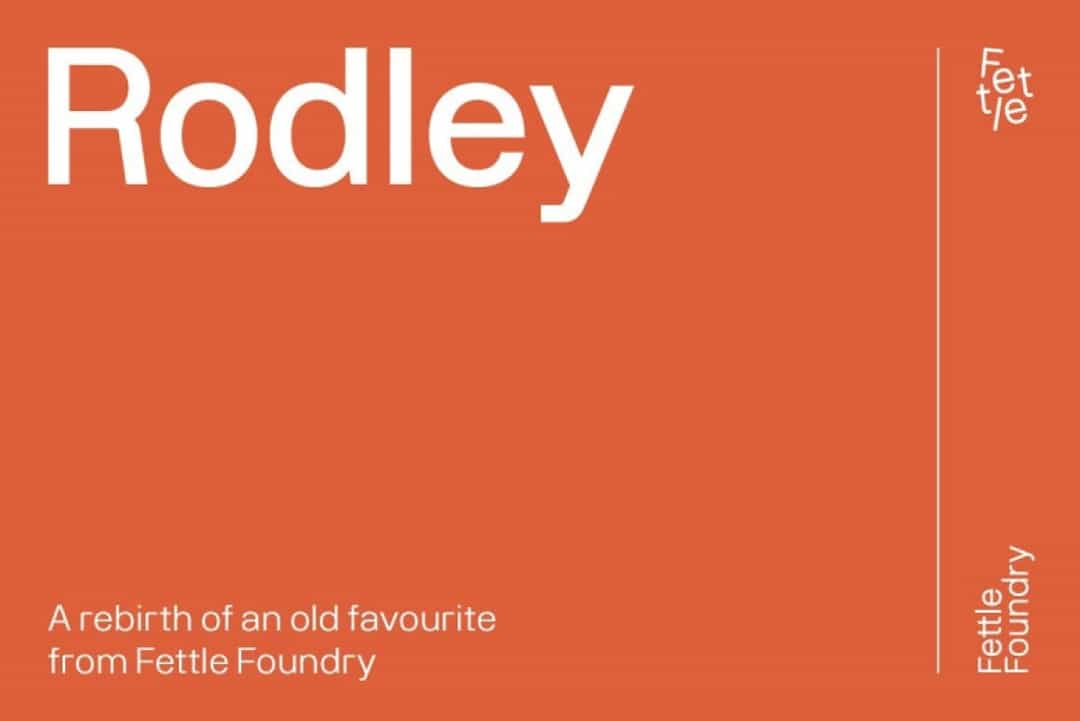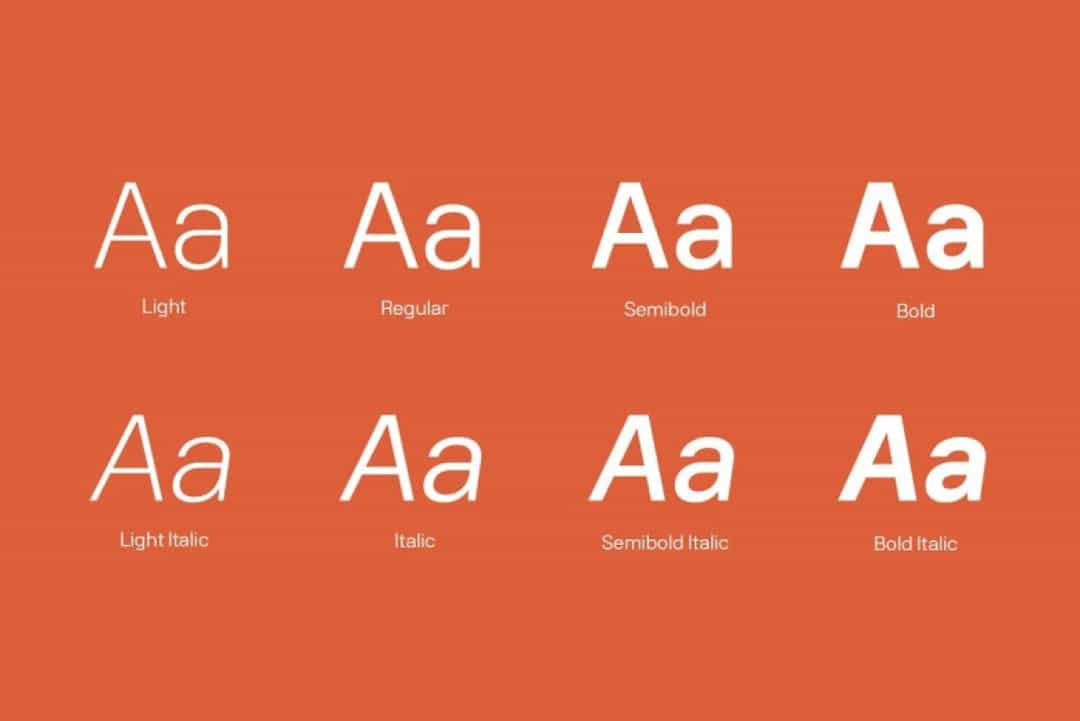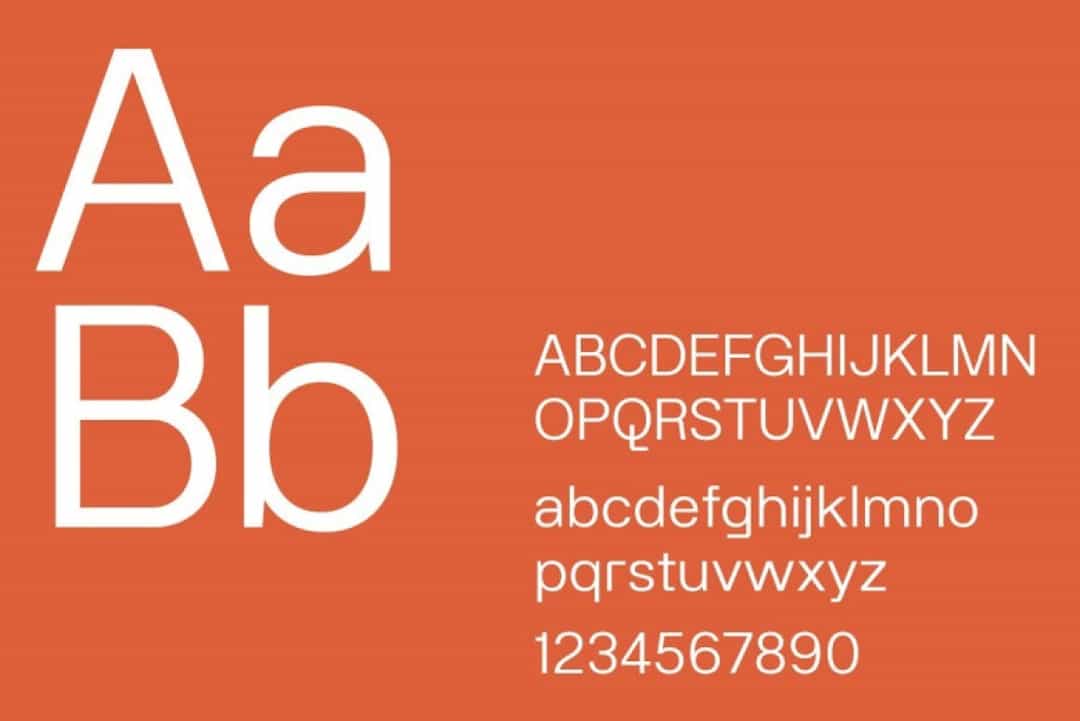
Rodley Sans Serif Font is a completely reimagined redesign from Bairne, Fettle Foundry’s inaugural typeface, that includes an entirely new character set that more closely represents its original concept. These changes have made Rodley its own entity; becoming its own typeface altogether.